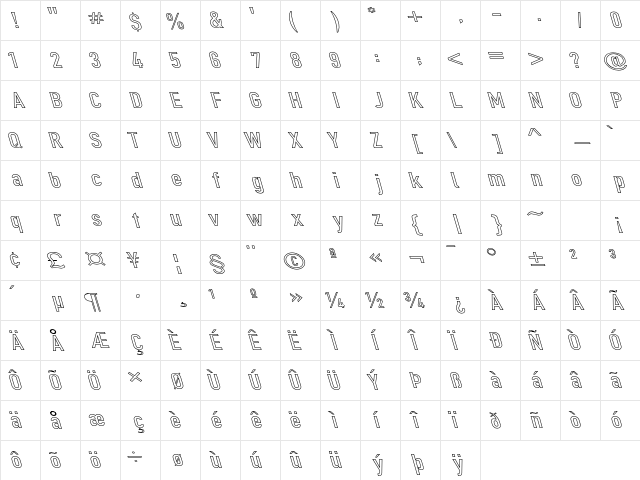
Din Kursivschrift BreitLeftGho
Design Context for Din Kursivschrift Typeface
Din Kursivschrift offers clean, dependable letterforms without strong stylistic allegiance, making it a practical choice for designers who need flexibility. Its italic angle brings a sense of urgency and motion to the letterforms.